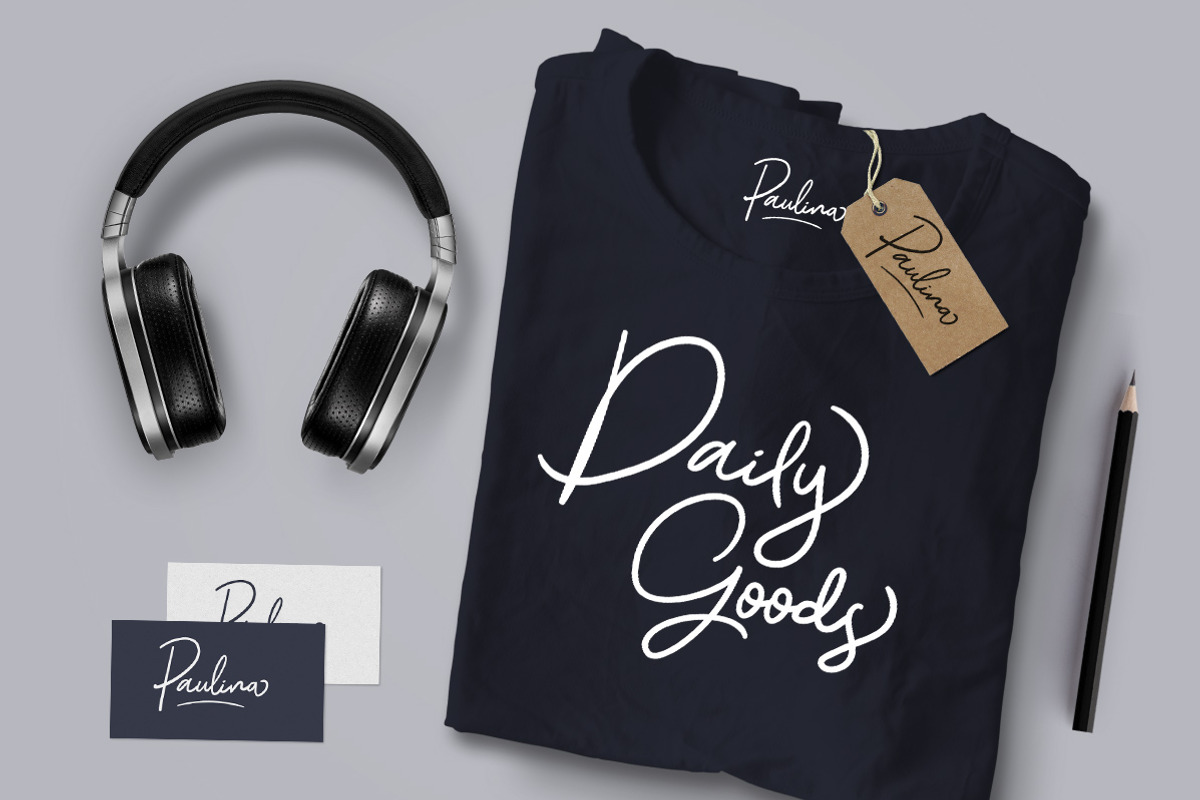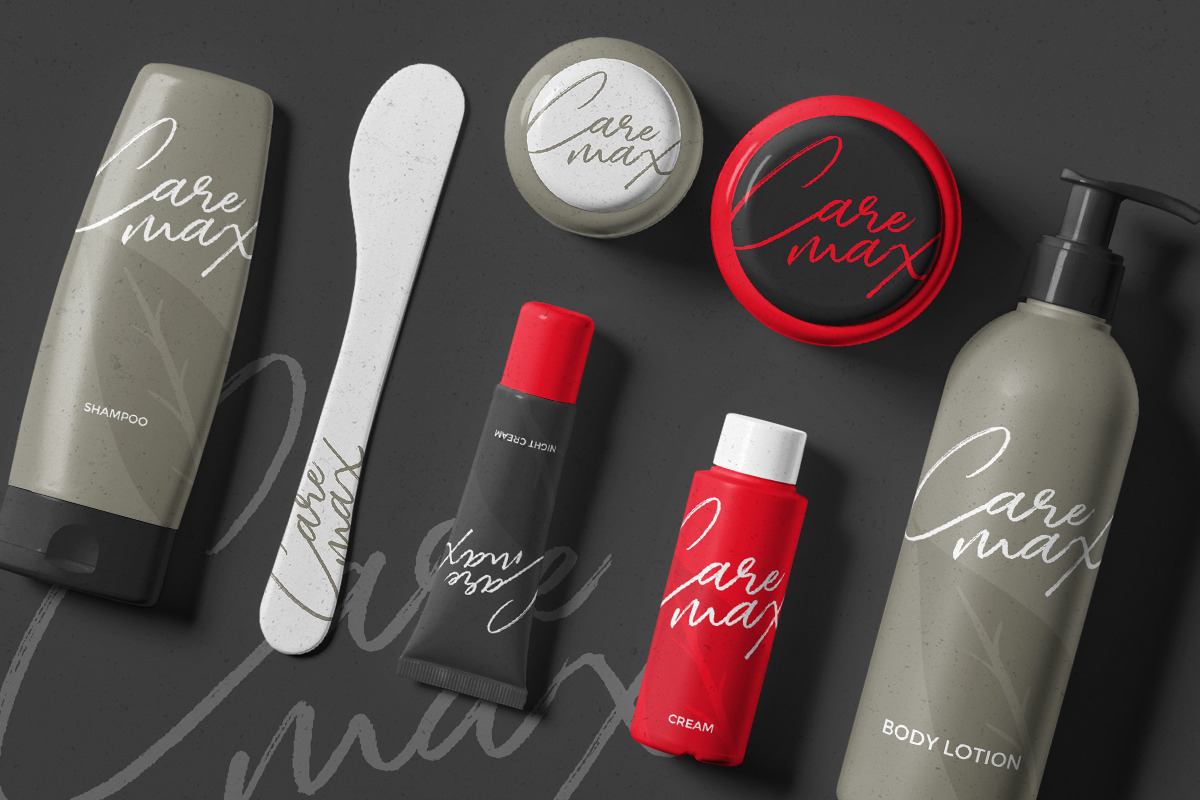
Gloriant Signature Script
Introducing Gloriant Signature Script Font with two type of font : clean and brush! Both of them looks nice and elegant, naturally made by hand writing. This font is suitable for any design purposes such as logo, headline, quotes, apparel, wedding invitation, and of course as your digital signature :) Gloriant Signature Script Font comes with opentype features like ligature, stylistic alternate, contextual alternate, swash, etc and support multi language. Please check the 3rd preview for more details.